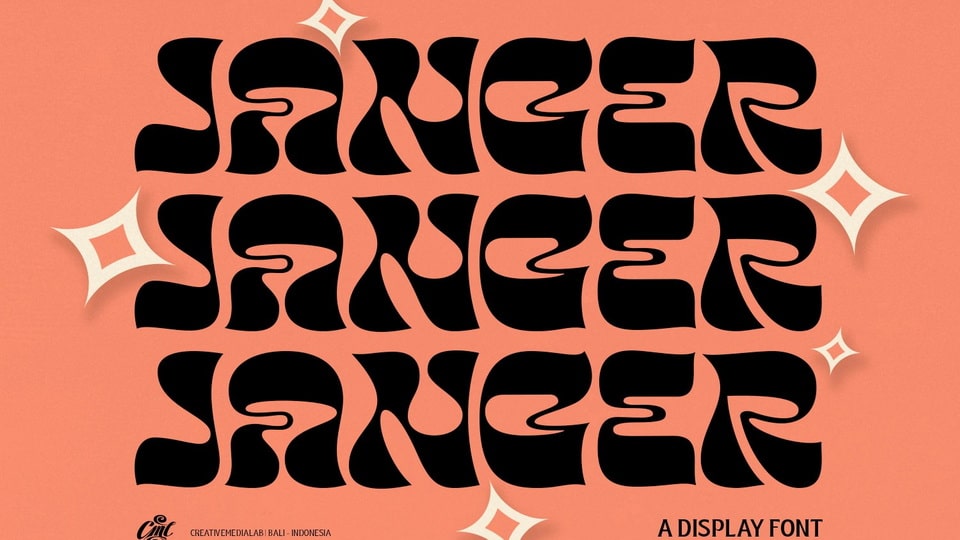
Download Janger font, a bold and fun display typeface. Janger features a reverse contrast style with a retro and psychedelic look that’s simply ideal for design such as posters, t-shirts, branding, logo, and many more